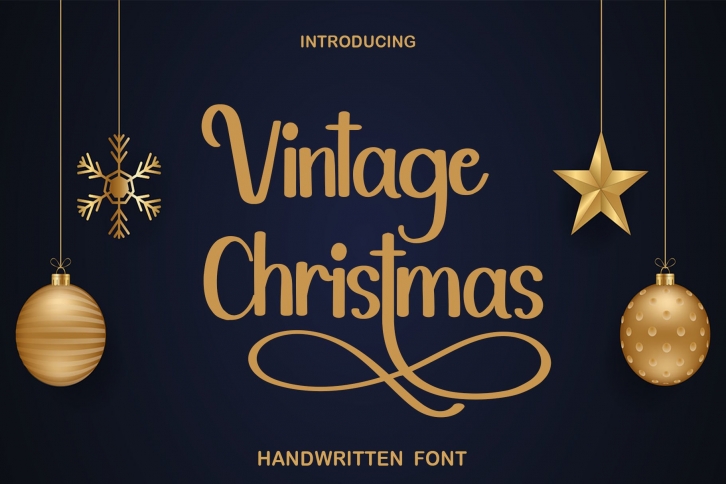
Vintage Christmas is an enchanting and beautifully flowing handwritten font. This versatile typeface has a wide spectrum of applications ranging from greeting cards to headlines and is guaranteed to add a romantic feel to your next project!